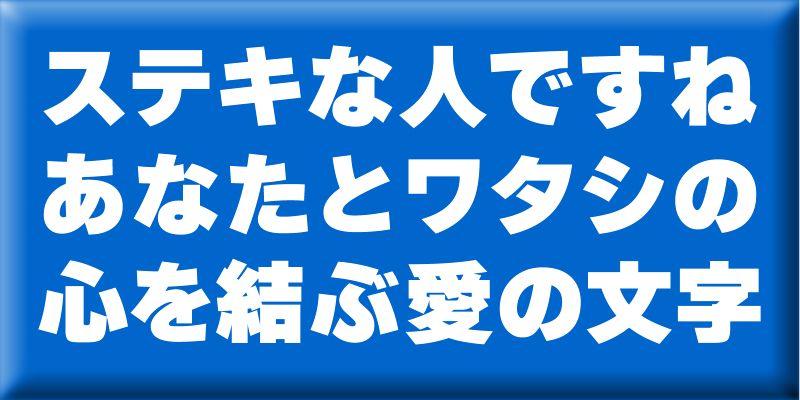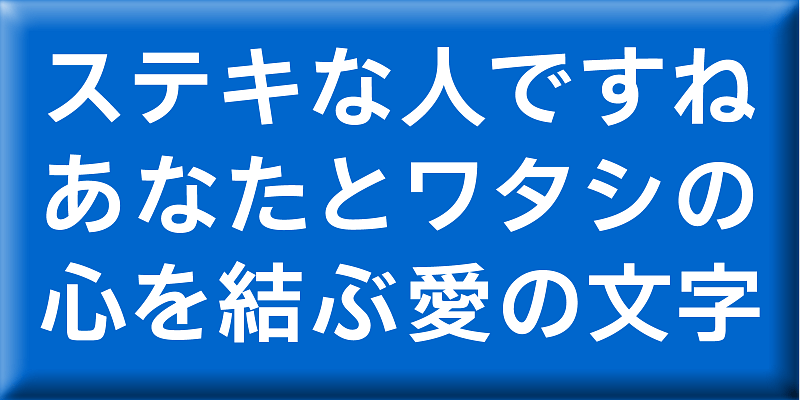
Ruika has a simple and neat design with larger glyphs designed for readability. Ruika means “bridge” in the Ainu language.
A bridge connects one side to the other, one person to another. A bridge links. This typeface is named Ruika, because it was designed to connect people.
Through typeface designs, we aim to convey a meaning beyond the textual content. Typefaces that allow users to clearly convey their full meaning. Typefaces that both typesetters and readers will enjoy. These are the kind of typefaces that we aim to create.